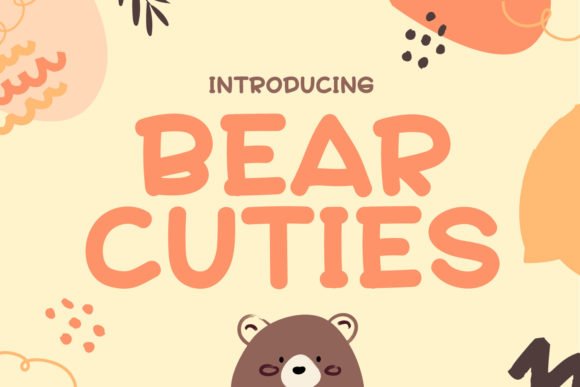
The Ultimate Design Companion: Bear Cuties Font
Have you ever stumbled upon a font that makes you go “wow” and sparks a million design ideas in your head? For me, it was the moment I laid eyes on the Bear Cuties Font. Its unique, natural style is like a breath of fresh air in the world of typography.
Bear Cuties Font is a cool and thick lettered display font that’s perfect for designers who want to add a touch of whimsy and personality to their projects. Its versatility makes it a great fit for a wide range of designs, from graphics and illustrations to logos and branding materials.
Whether you’re a seasoned designer or just starting out, Bear Cuties Font is a valuable addition to your toolkit. With its endless possibilities, the only limit is your imagination!
Bear Cuties Font Key Features
- Unique Characteristics: The Bear Cuties Font features adorable bear illustrations integrated into the font design, adding a playful touch to any text.
- Character Count: The font includes a wide range of characters, including uppercase and lowercase letters, numbers, and punctuation marks.
Bear Cuties Font Review
I recently had the chance to work with the Bear Cuties Font, and I must say it’s a delightful addition to any design project. ✨ The font’s playful and whimsical feel is perfect for creating a childlike atmosphere, making it ideal for projects like children’s books, educational materials, and even advertising campaigns.
The Bear Cuties Font’s design is well-executed, with clear and crisp lines that make it easy to read even at smaller font sizes. The font’s customization options are also impressive, allowing designers to adjust the spacing, letter spacing, and even the font’s weight. ✨ This flexibility makes it easy to adapt the font to different design styles and contexts.
- ⚠️ The font may be too playful for more formal or professional projects, where a more subdued tone is required.
- ⚠️ The font’s customization options can be overwhelming for beginners, and may require some experimentation to get the desired results.
Overall, I’m impressed with the Bear Cuties Font’s potential and versatility. While it may have some limitations, it’s a great choice for designers looking to add a touch of whimsy to their projects. With some careful planning and execution, this font can be a real showstopper. ✨
Some tips for getting the most out of Bear Cuties Font include:
– Using it for whimsical and playful designs, such as children’s books or nursery decor.
– Pairing it with bold and colorful fonts for a fun and eye-catching look.
– Using it for social media graphics or marketing materials that require a cute and approachable tone.
Great Vibes Font is a handwritten script font that conveys a sense of friendliness and approachability. It is ideal for use in greeting cards, social media posts, and advertising campaigns where a casual, informal tone is desired. Compared to Bear Cuties Font, Great Vibes Font is more versatile and can be used for a wider range of applications.
Carolyna Pro Font is a modern, elegant script font that is perfect for use in high-end branding, packaging, and advertising campaigns. It is ideal for designers who want to create a sophisticated, luxurious look. Compared to Bear Cuties Font, Carolyna Pro Font is more refined and polished, making it suitable for formal applications.